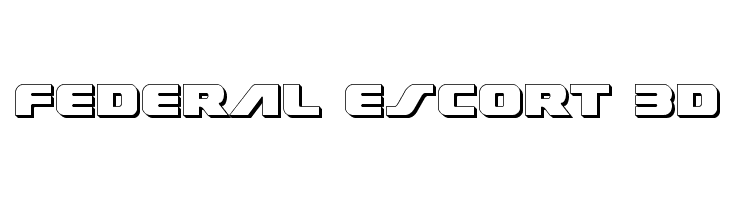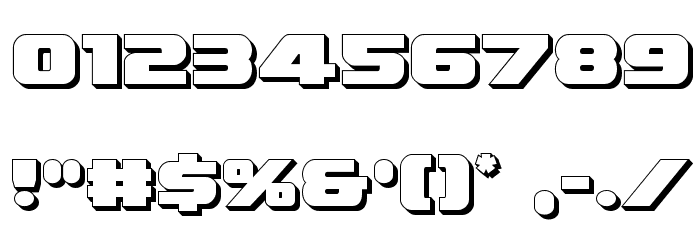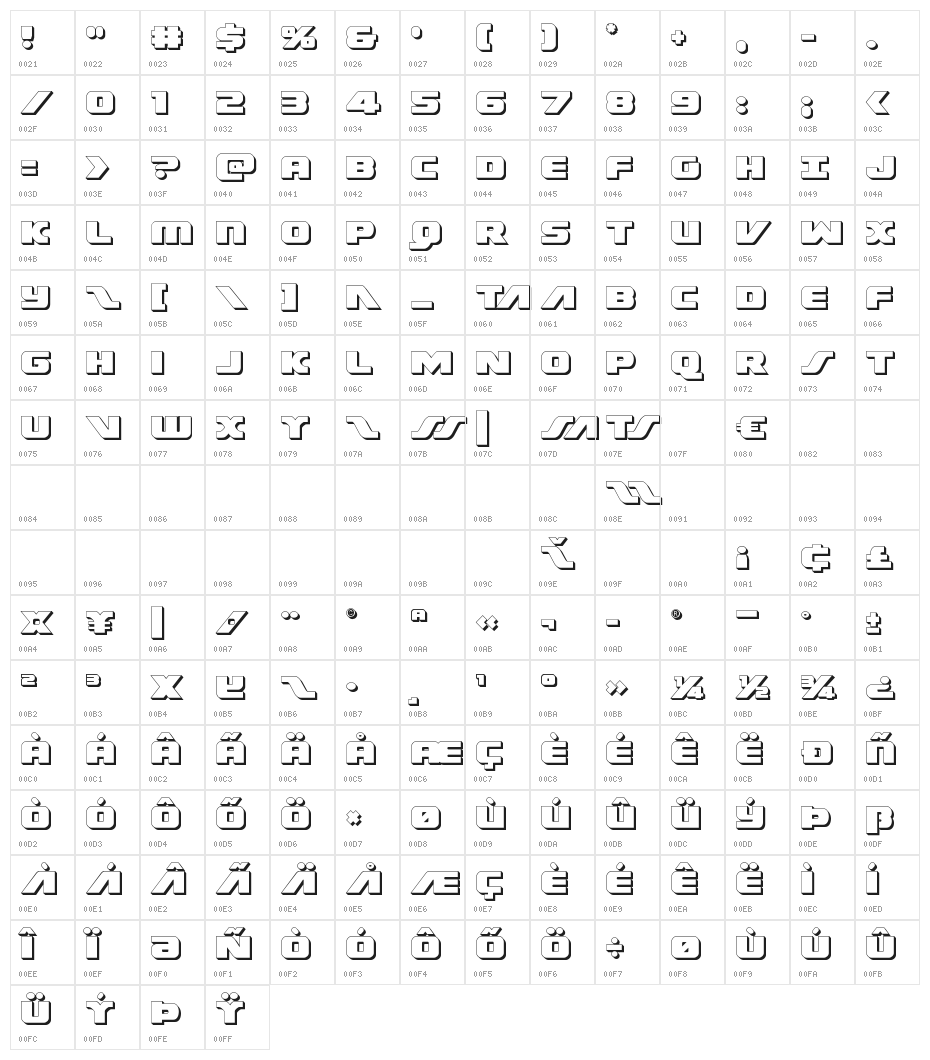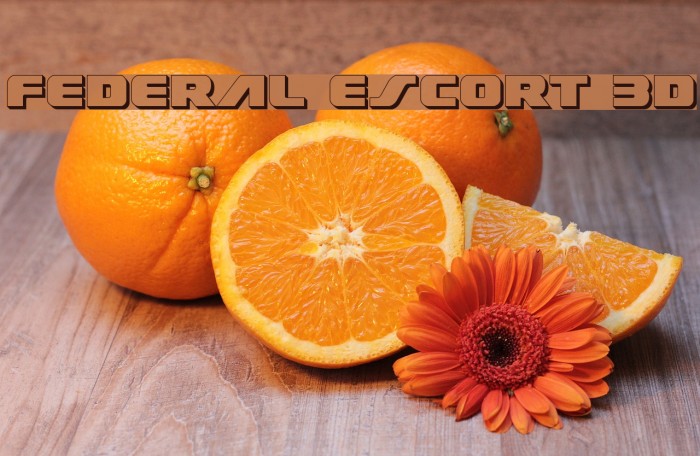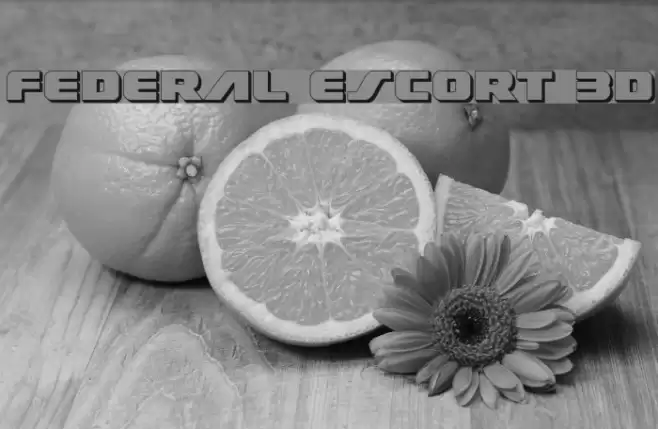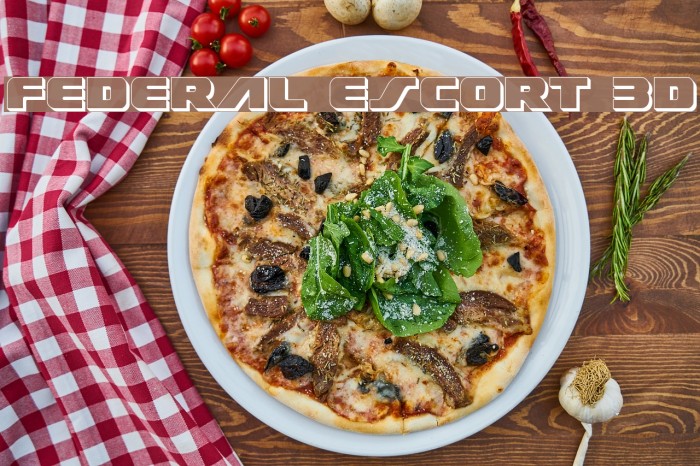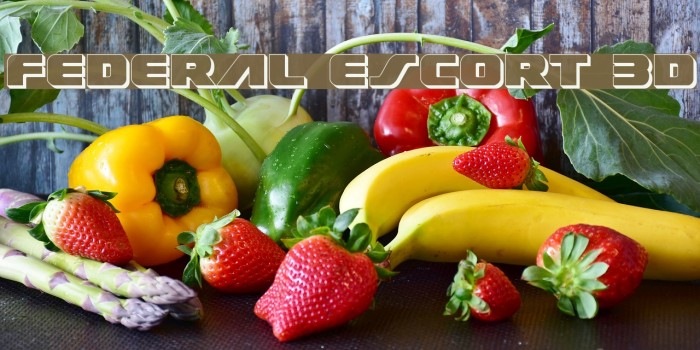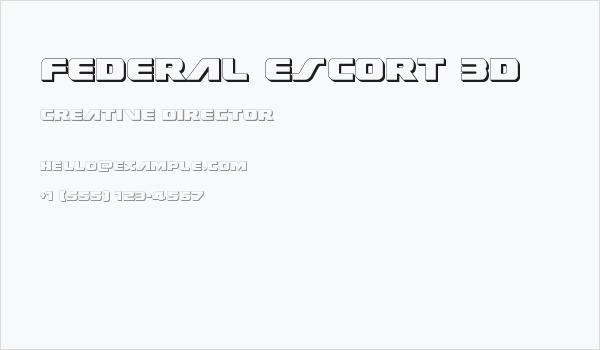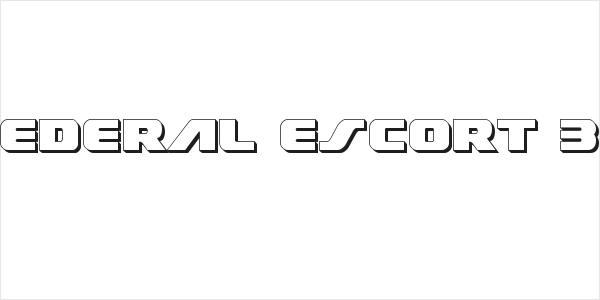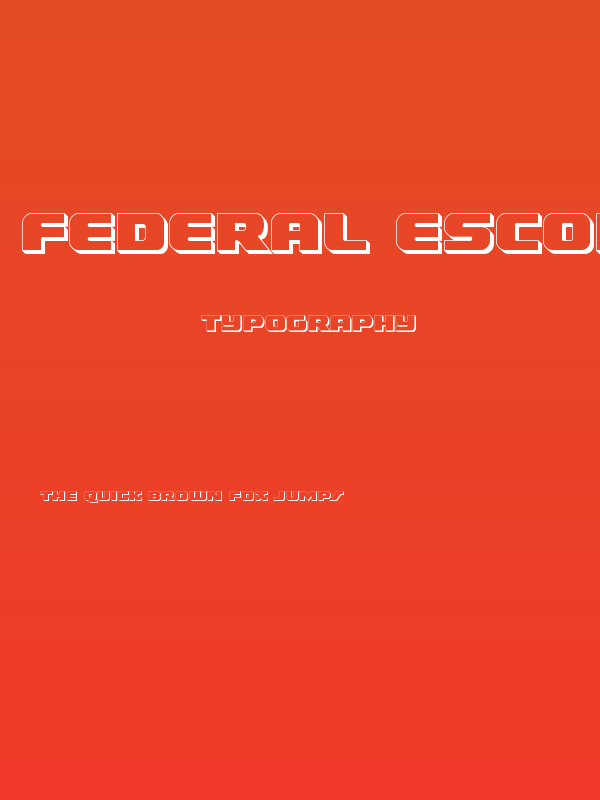
Federal Escort 3D Font
Federal Escort 3D Description
This font features a bold, three-dimensional style with a strong, geometric presence. Each character is outlined with a shadow effect, giving it a distinct 3D appearance. The letters are uppercase and have a blocky, angular design, which adds to the boldness and visibility of the font. The numbers and special characters follow the same design principles, maintaining consistency across the typeface. This font is highly decorative and eye-catching, making it suitable for projects that require a strong visual impact.
| Proposed Projects | Ideal for posters, signage, video game graphics, and any project needing a bold, standout typeface. |